Looking for the perfect fonts to get your wedding invites just right? Creative Fabrica has a ton of beautiful fonts that are great for the most important day of your life. Choosing fonts for a wedding is tough – you want them to feel personal but also easy for everyone to read. The right fonts can really set the mood for your wedding, from the first save-the-date to the signs at the reception.
It's a good idea to think about what kind of vibe you're going for before you pick a font. Different styles of fonts give off different feelings – like classic, modern, fun, fancy, or something totally unique.
Font Styles for Wedding Invites (And the Vibe They Give)
The fonts you pick should match your wedding style. A modern city wedding needs different fonts than a chill garden wedding. Here are some popular types of fonts and what kind of mood they bring to wedding invitations.
Picking the Right Font: Some Things to Think About
Script Fonts
Script fonts look like handwriting – some are fancy and swirly, others are simple and sweet. They're known for their smooth lines and a bit of classy style.
- Why they're great: If you want a classic, romantic feel, these are a good pick.
- Heads up: They're used a lot, so your invites might not look super unique.
Serif Fonts
Serif fonts are like the classic, dependable choice. They're structured, look good, and are easy to read. They work well for traditional invites and look great with more modern fonts.
- Why they're great: You can find them in lots of styles, so they're pretty useful.
- Heads up: They can look a bit serious if you don't use them right.
Sans Serif Fonts
Sans serif fonts are clean, simple, and easy to read. They're great as a second font, but you can also use them as the main font if you want a modern, laid-back feel.
- Why they're great: Easy to read and look good with other fonts.
- Heads up: They might make your wedding seem too casual.
Display Fonts
Display fonts are all about showing off your personality. They're usually bold, fun, and different – great if you want to stand out.
- Why they're great: It allows you to get creative and show who you are.
- Heads up: They can be hard to read sometimes.
Calligraphy Fonts
Calligraphy fonts are super romantic – every curve looks special. They're a favorite for traditional wedding invites.
- Why they're great: You can use them for lots of things, like signs and menus.
- Heads up: Some can be hard to read if they're too fancy.
Beautiful Fonts for a Classic Wedding
Planning a wedding can be crazy, but picking fonts is one of the fun parts. If you like things classic, fancy, and timeless, here are some beautiful fonts to check out.
1. Enchanting
This font looks like it was written by hand and has a sweet, timeless feel. Enchanting Script is awesome for save-the-dates, love quotes, and important text.
2. Wedding
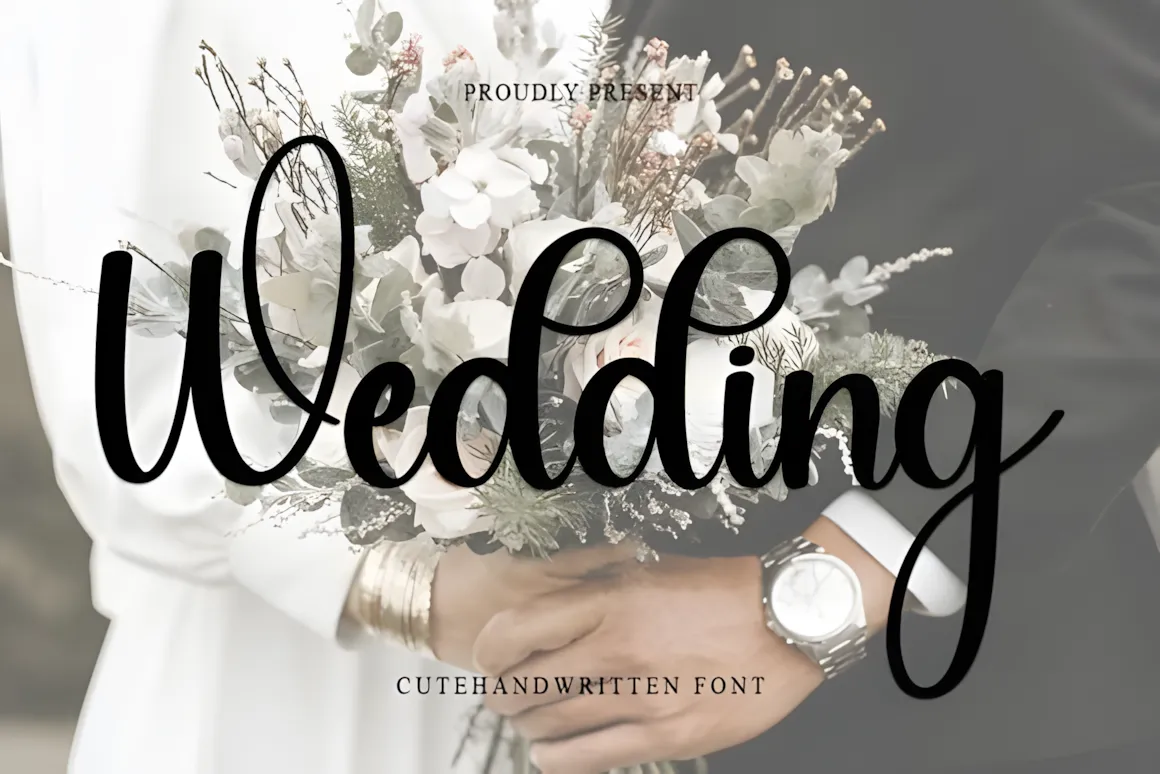
Simple, romantic, and clean. Wedding Font is elegant but not too flashy. It's great for invites where you want a touch of class.
3. Soulmate
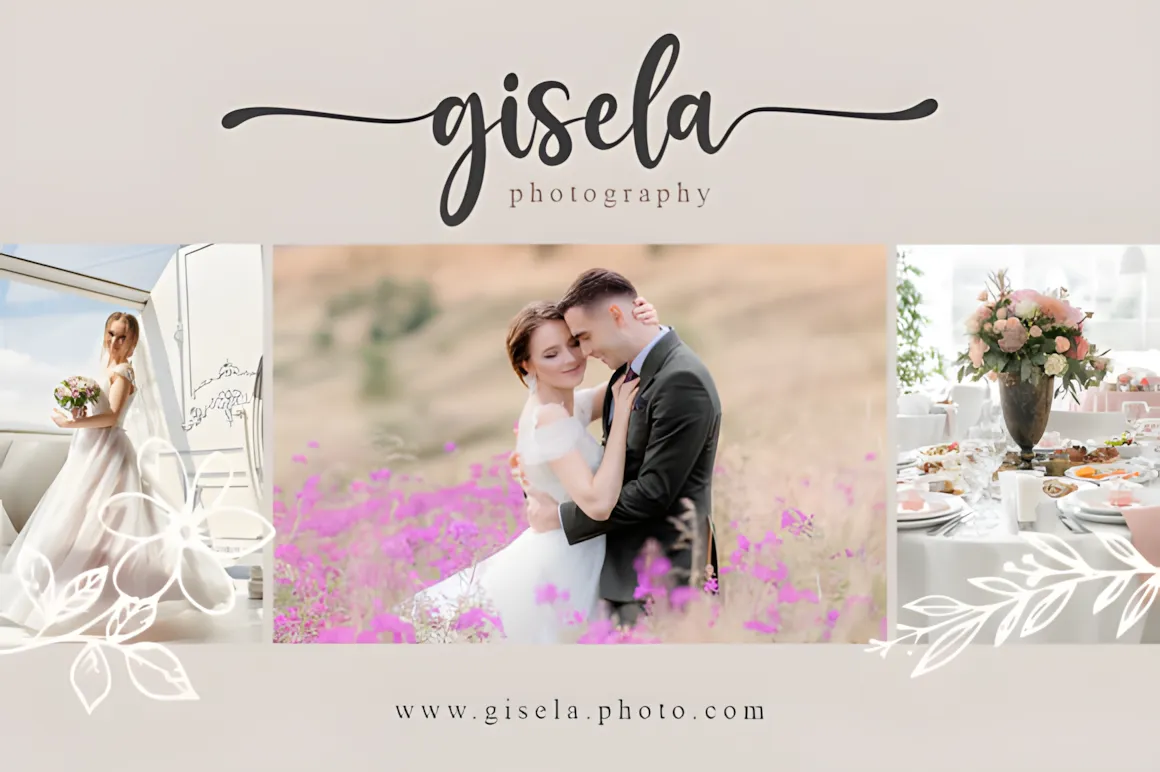
Just like the name, Soulmate has a warm, handwritten feel with cool, long strokes. It's perfect for thank you cards, quotes, and sweet wedding invites.
4. Sign Rathi
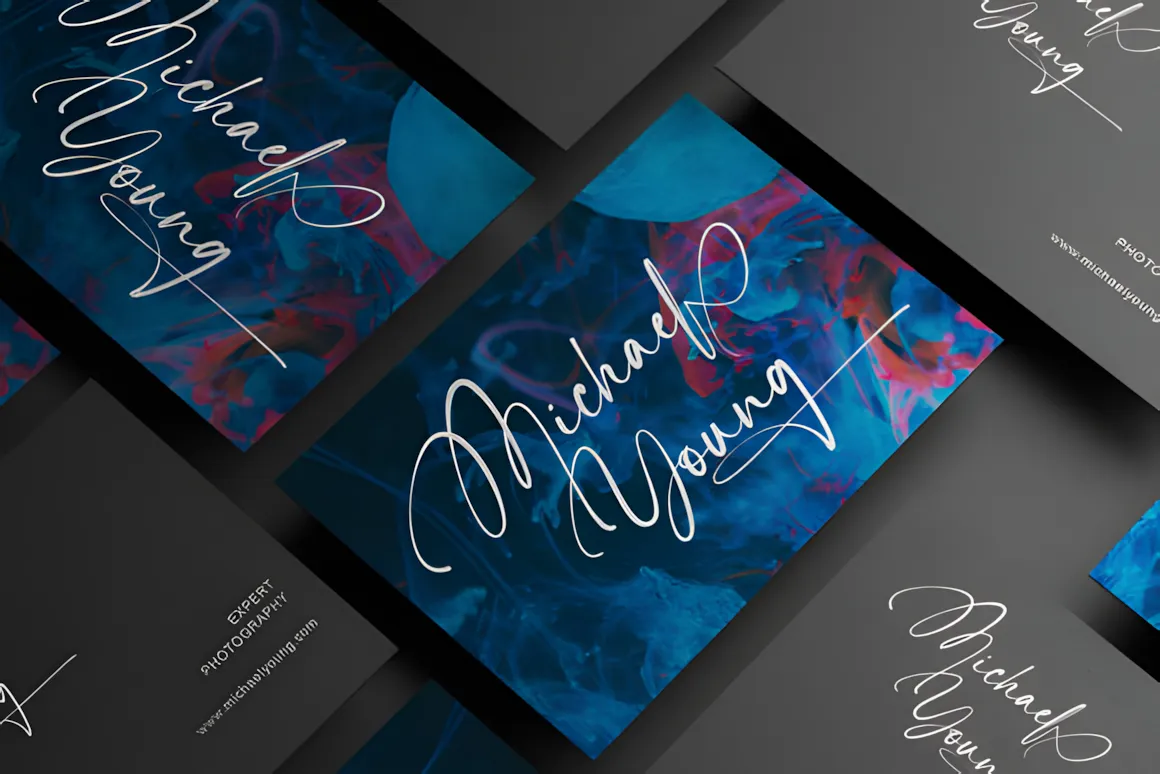
For something a bit more fancy, Sign Rathi looks like it was written with a fountain pen. It's great for guestbooks, invite headings, and elegant thank you notes.
5. Maddison
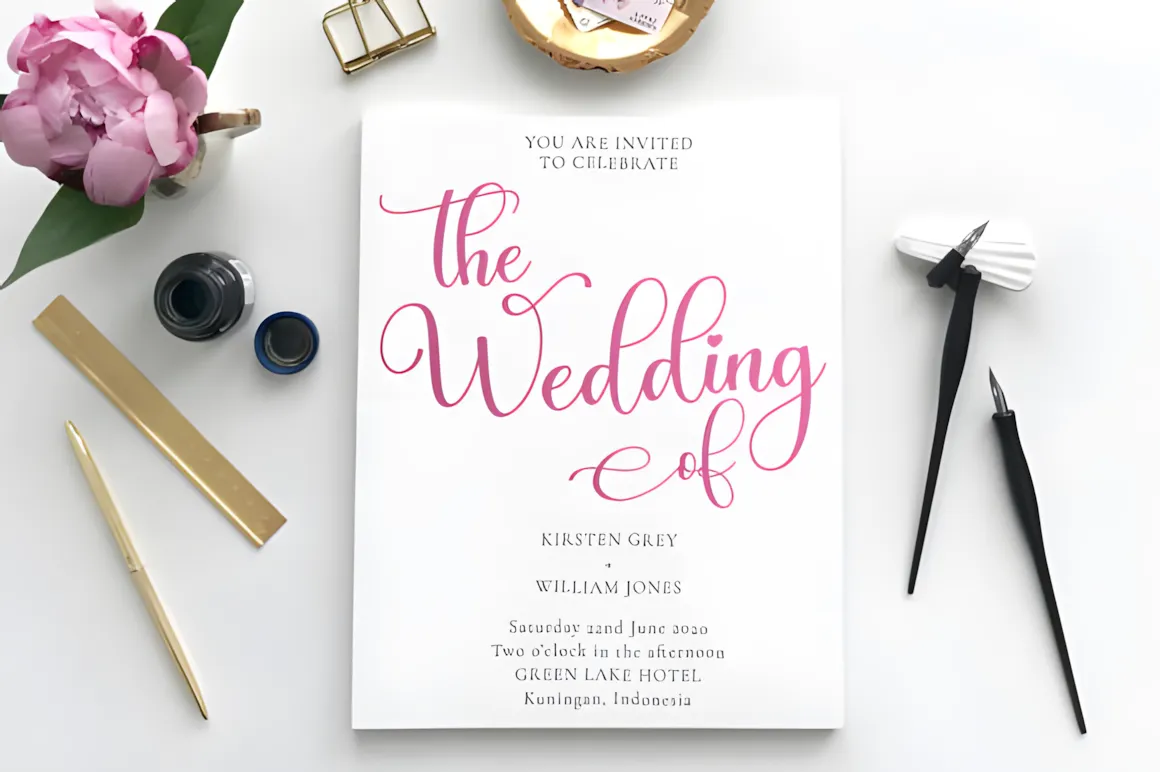
Romantic and super fun. Maddison has a playful feel with heart-shaped bits. It's sweet and perfect for save-the-dates or engagement cards.
6. Better Together
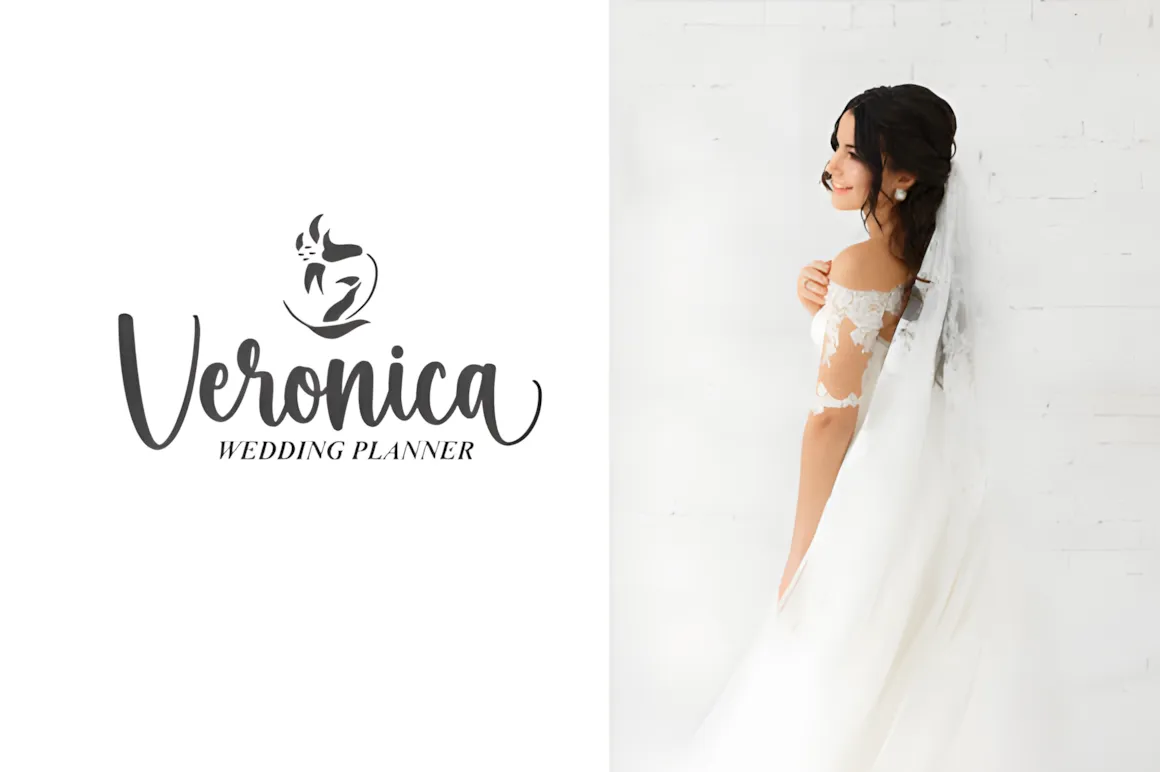
A casual, handwritten font that's warm and friendly. Better Together looks great with a simple sans serif font for a design that's both put-together and fun. Use it for signs and invites.
7. Andalucia
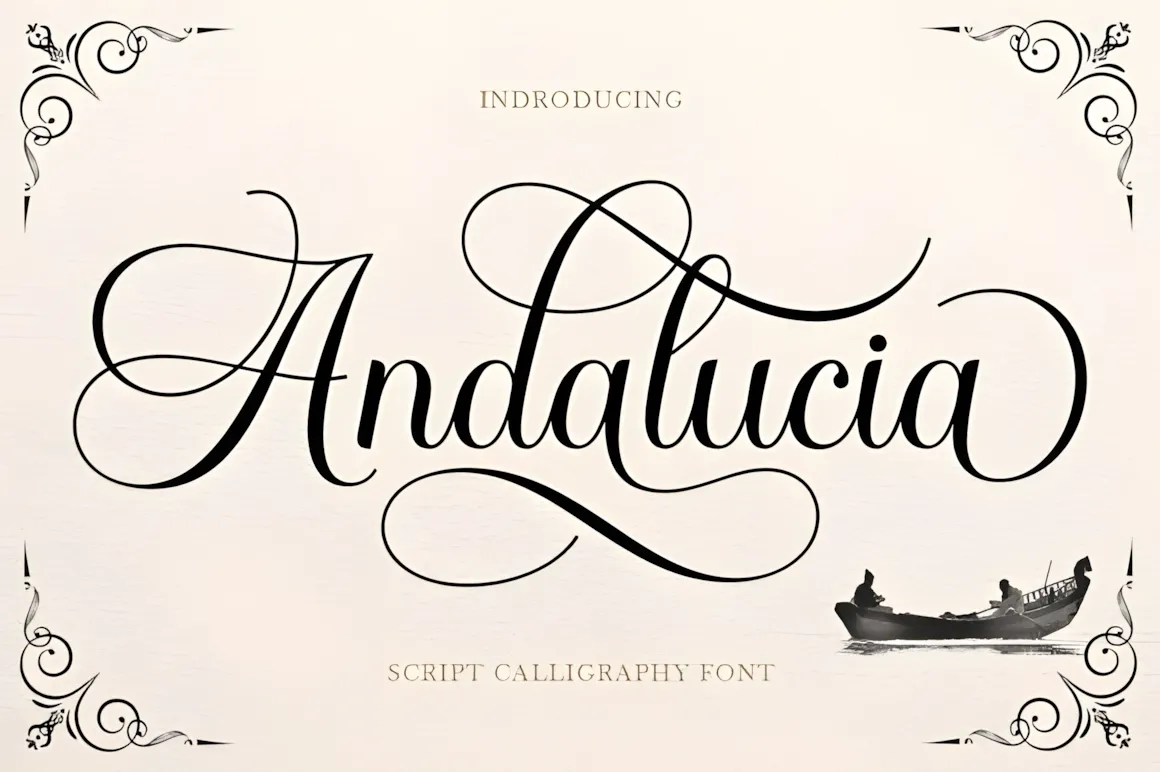
A calligraphy-style font with beautifully designed letters. Andalucia is modern, graceful, and fancy. Great for invites, menus, and elegant cards.
8. Wintersnow
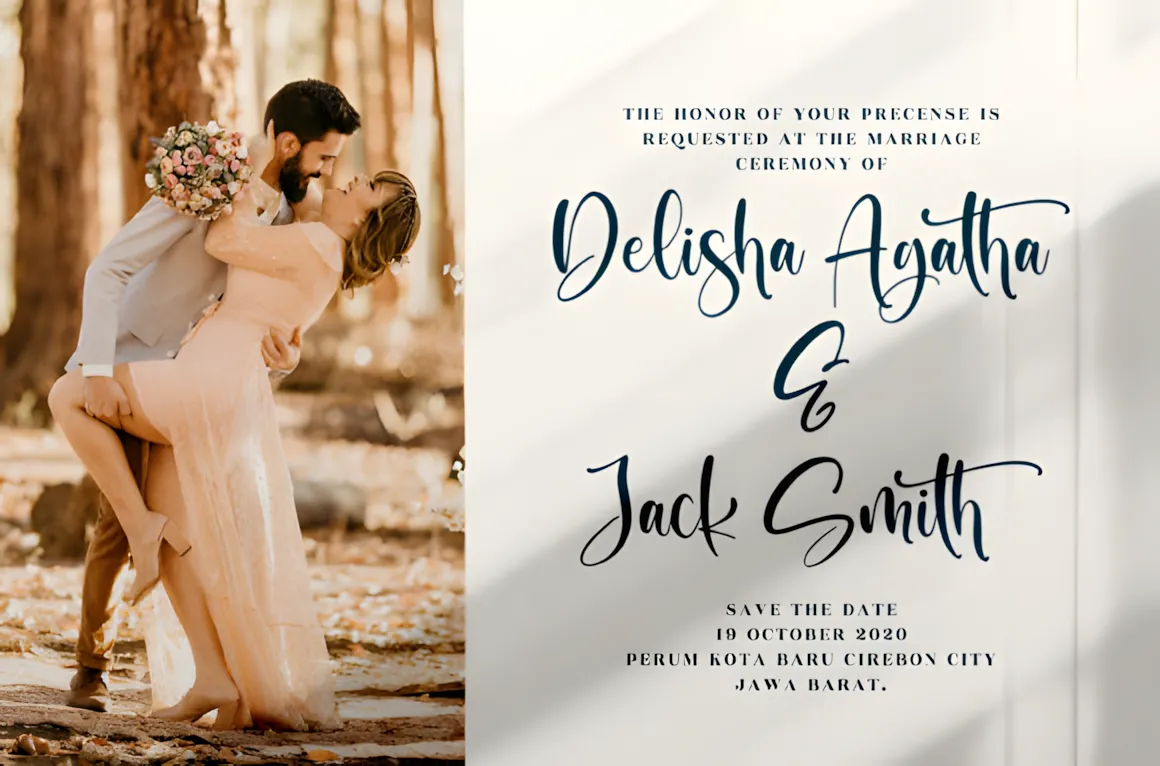
Having a winter wedding? Wintersnow has a cozy, handwritten feel that’s festive and romantic. It’s perfect for holiday invites or gift tags.
9. Feeling
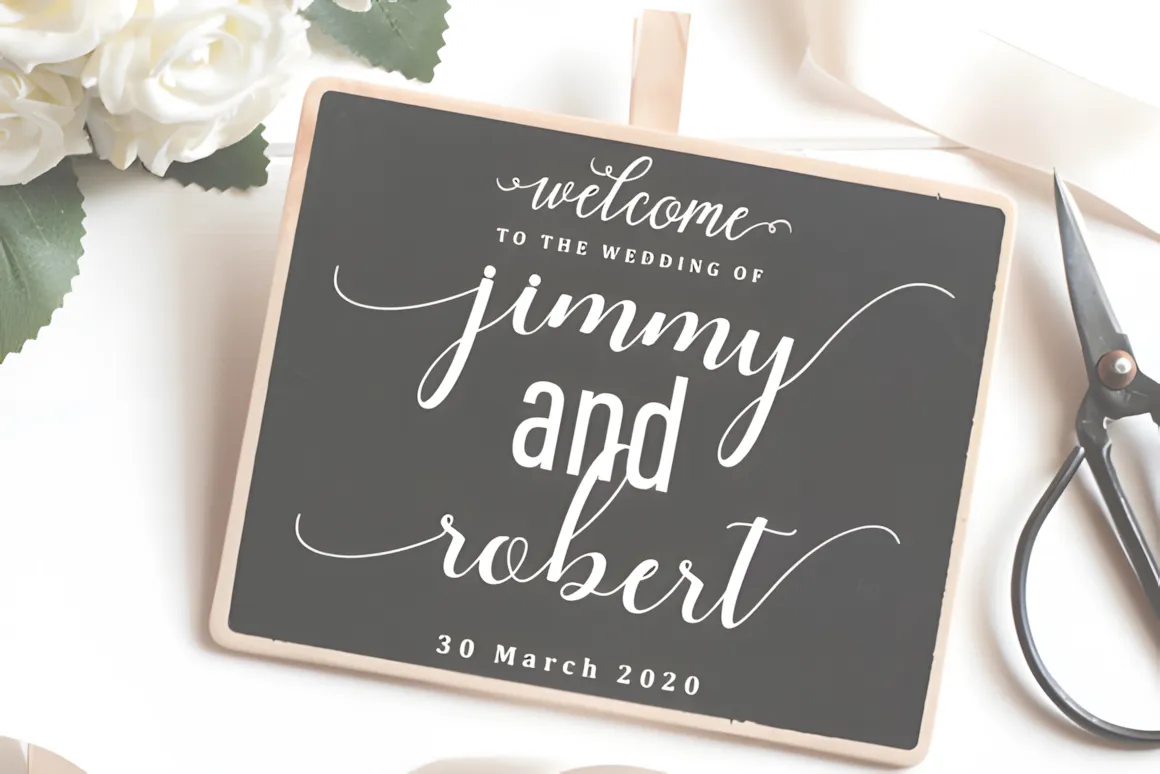
Soft and curvy, Feeling is made for designs that need a touch of class. Use it for wedding signs, table cards, and invites.
10. Filanttica
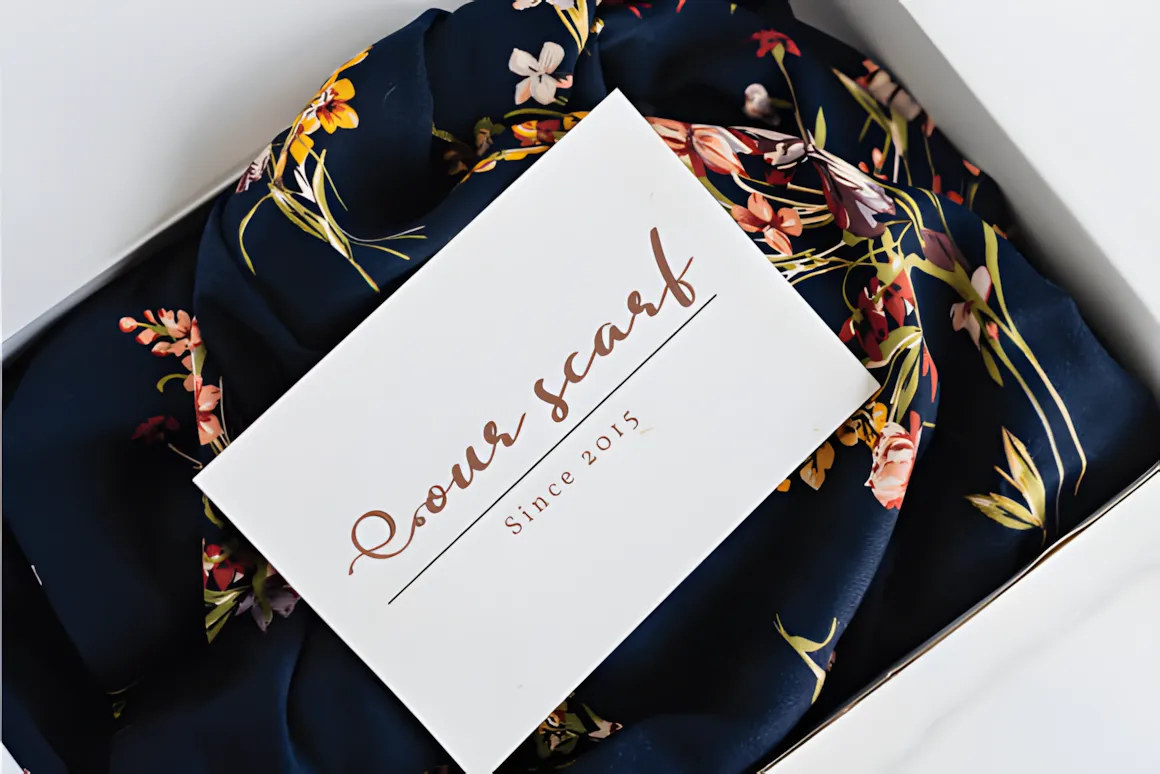
Quiet and charming, Filanttica has letters that are a bit tilted, giving it a graceful but simple feel. It's great for wedding signs and invites where you want something elegant but not over the top.
11. Degila
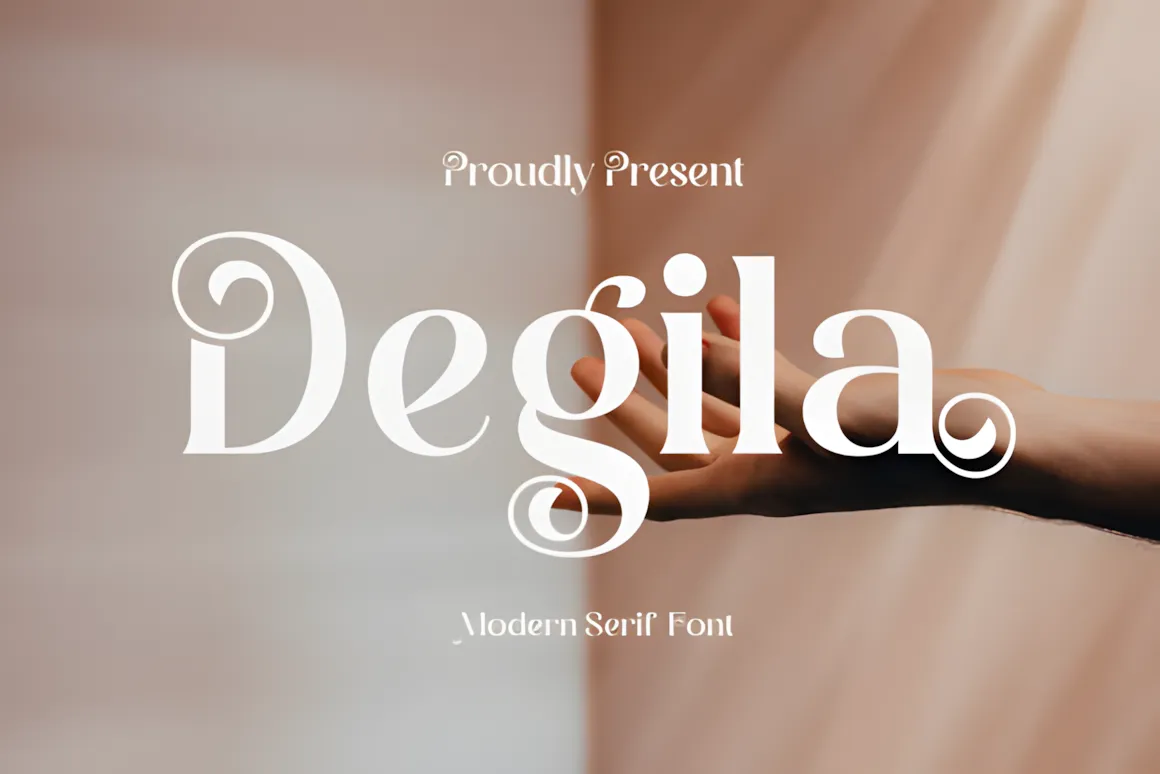
Cool and stylish with a bit of quirk, Degila is a serif font that stands out. Great for headlines and titles on invites.
12. Minimalist
Like the name says, Minimalist is clean and simple. It goes well with calligraphy fonts and helps to balance wedding invites and cards.
13. Daisy Garden
Picking the perfect font for your wedding invites? It's not just about looks; it's about telling your story! Whether you love romantic swirls, today's clean lines, or classy looks, your font choice sets the tone when guests get that first peek. I suggest matching two fonts that look good together, making sure it's easy to read, and fitting the font to your wedding's vibe—be it classic, chill, dressy, or totally out-there. With the just-right font, even little things will stick in people's minds.